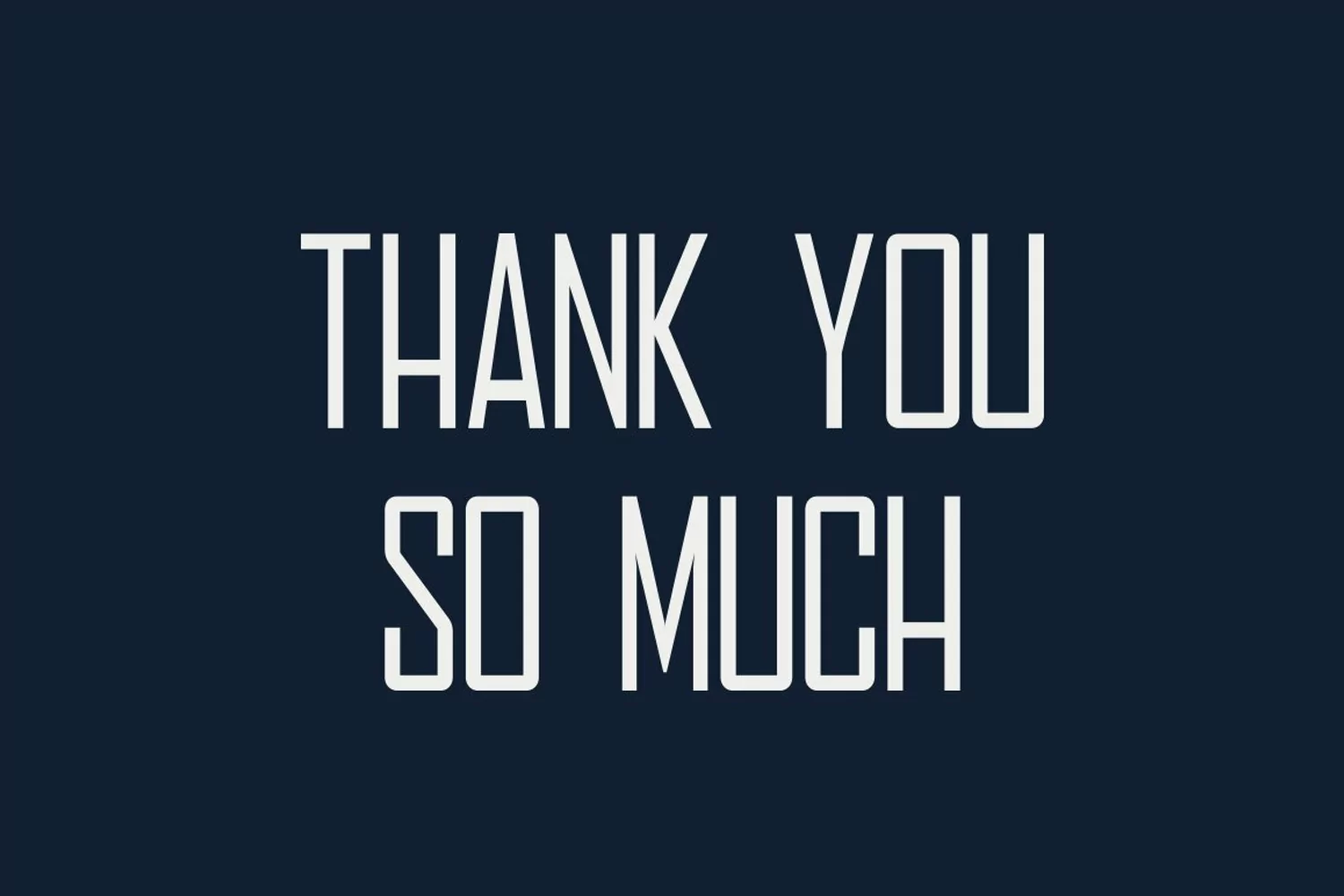
Gosper is a sans based font with unique lowercase that will make your design looks futuristic and modern. You can use this font for any purpose, especially to make logotype.